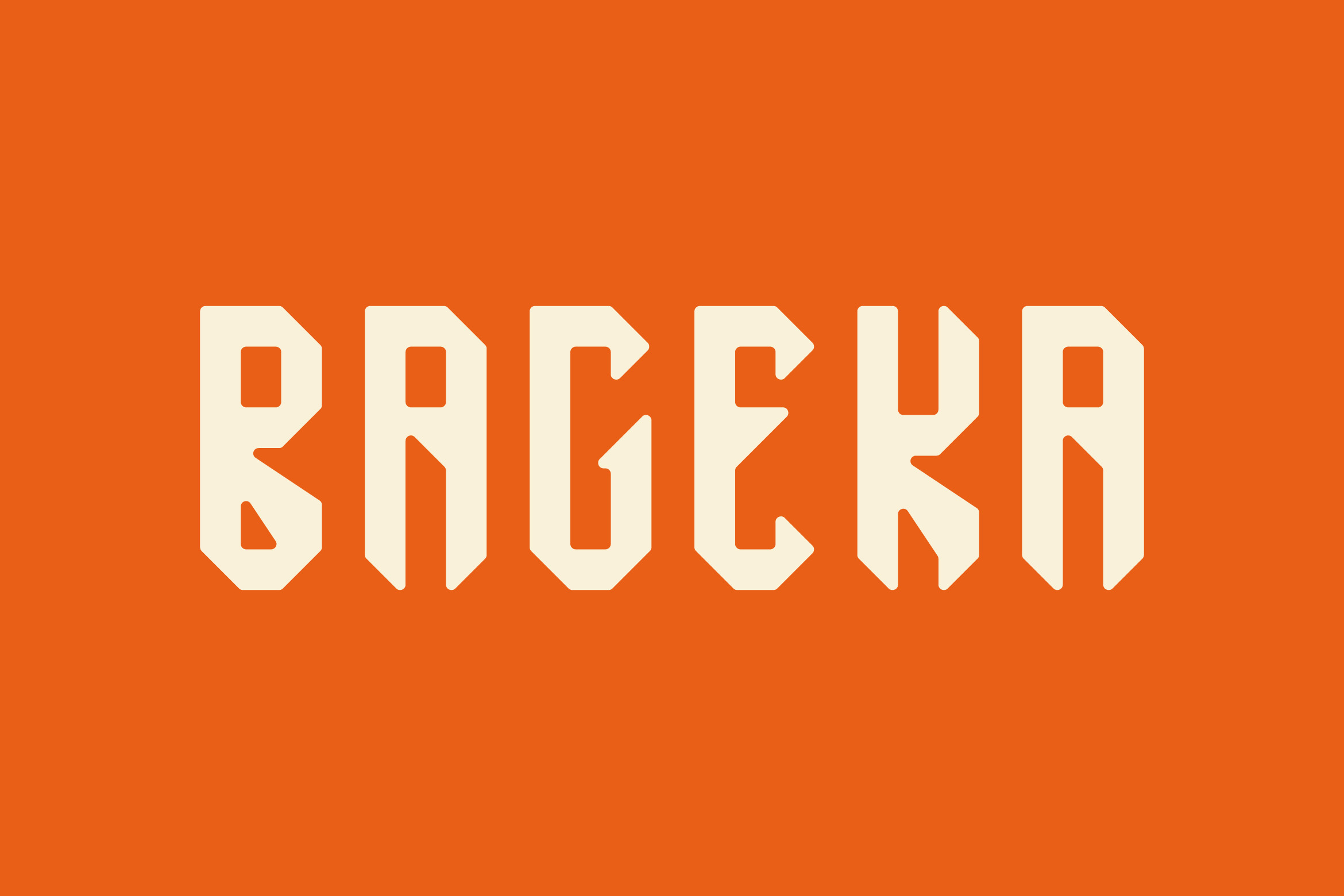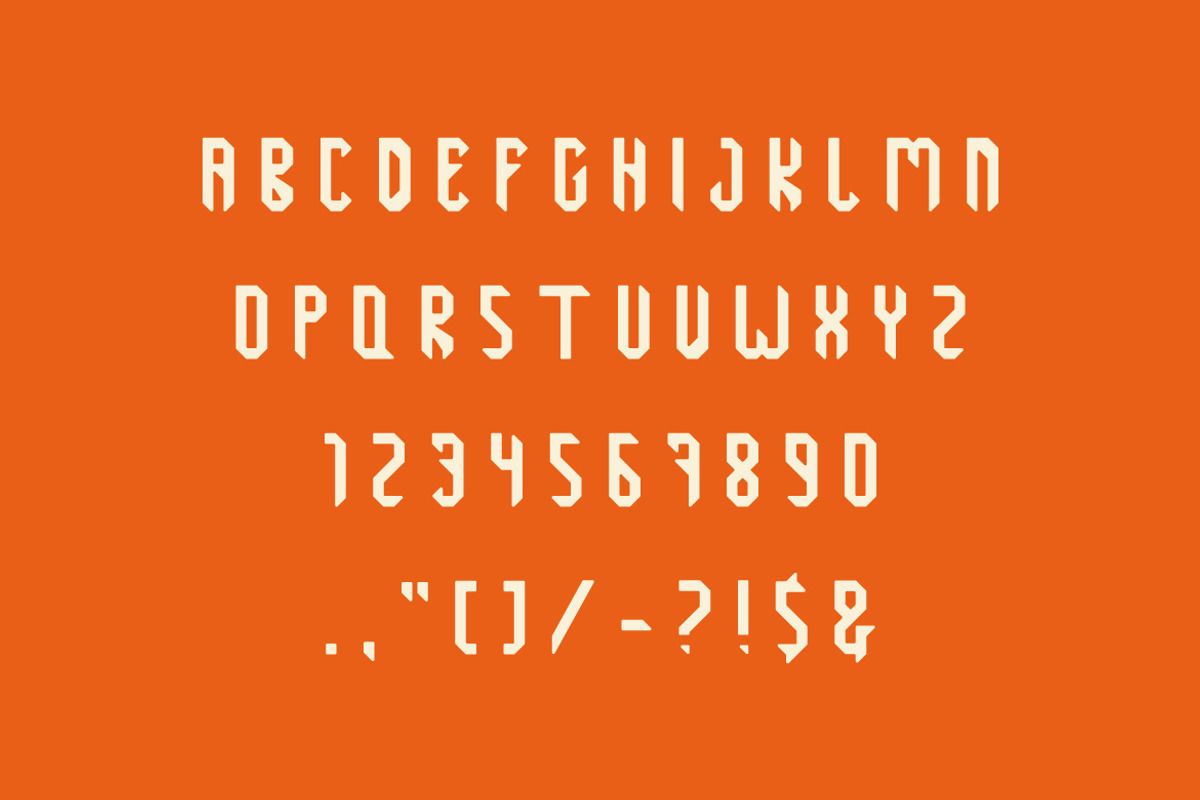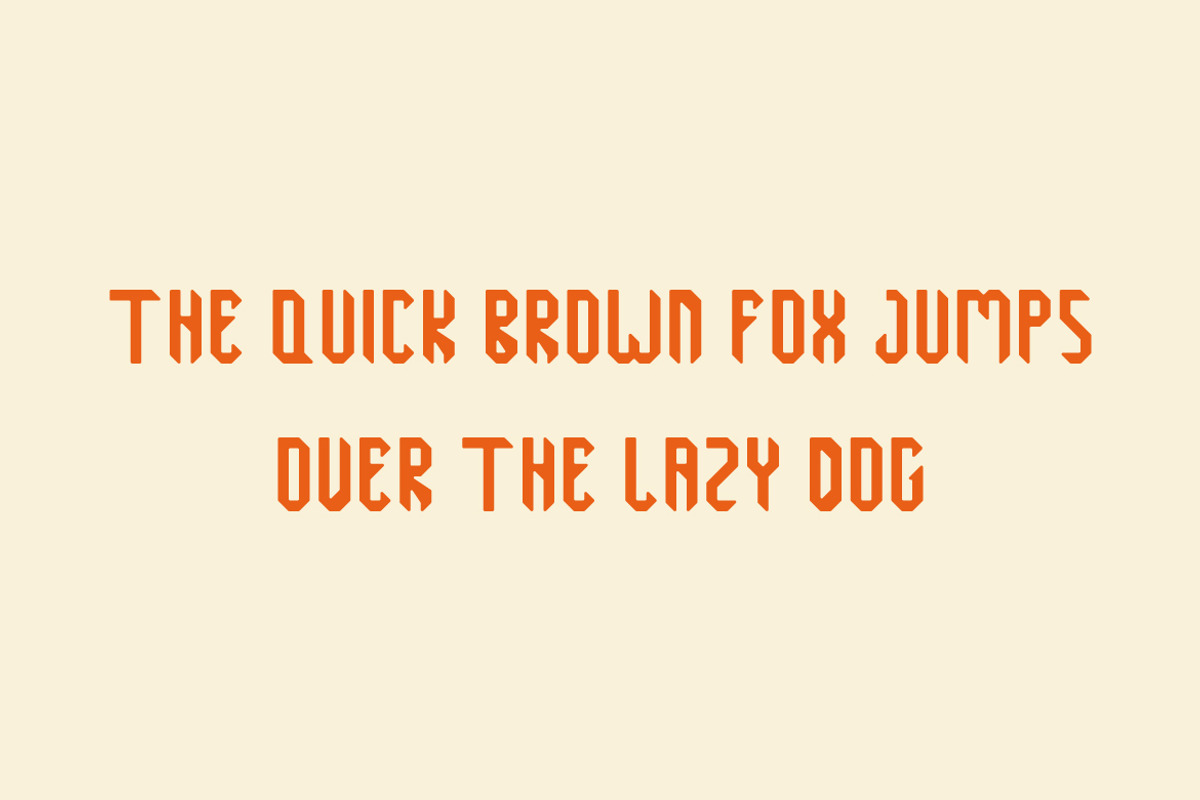
Bageka -Bold and Sharp font
Bageka is a bold and sharp typeface designed for a strong and modern aesthetic. With its edgy letterforms and powerful presence, it's perfect for branding, logos, posters, headlines, and high-impact designs. Make a statement with the confident and striking style of Bageka!